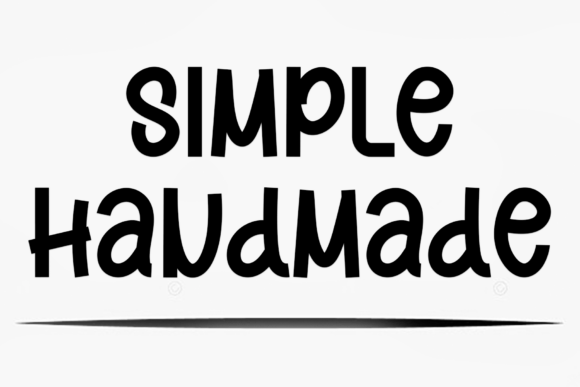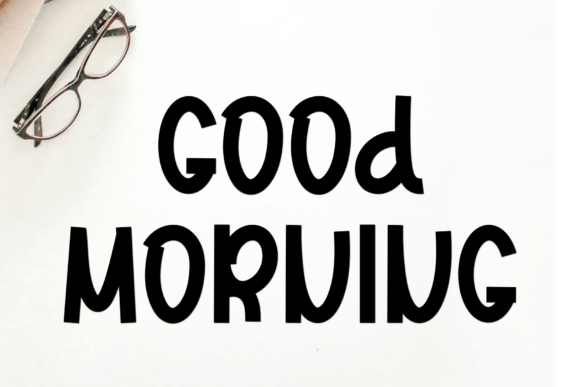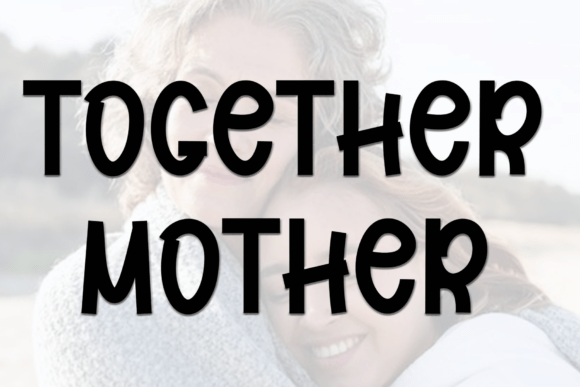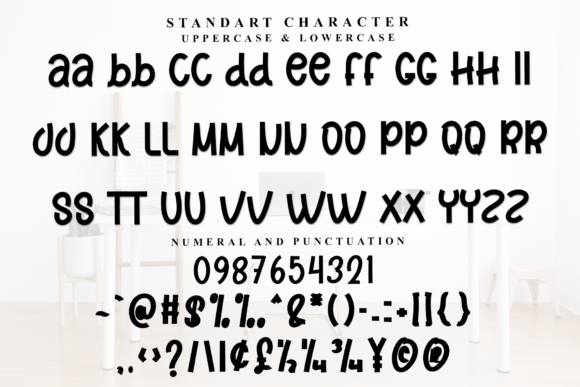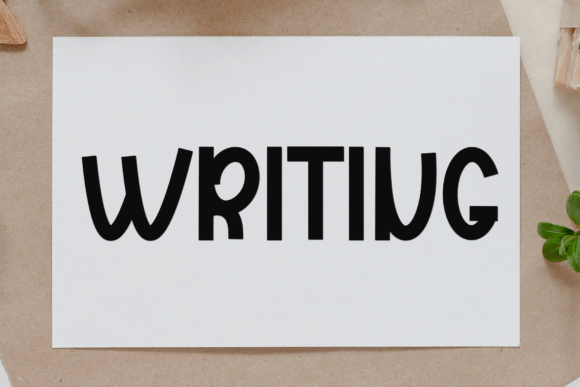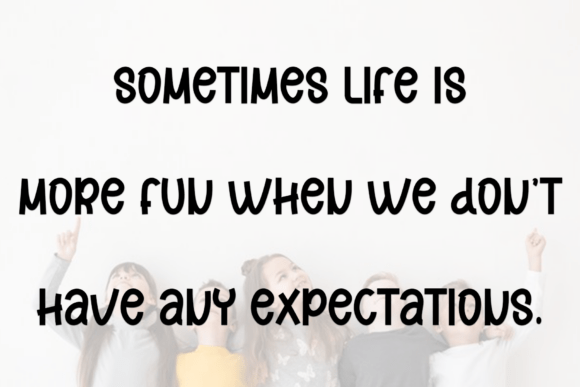
Introduction to Simple Whiskey Font
As the snowflakes gently fall outside, and the fireplace crackles to life, I find myself surrounded by the warmth and magic of the holiday season. It’s a time when creativity flows effortlessly, and I get lost in the world of design, searching for the perfect font to capture the essence of this special time of year. And then, I stumbled upon the Simple Whiskey Font – a festive and merry typeface that embodies the spirit of the holiday season.
This enchanting font is a treasure trove of creative possibilities, adding a touch of whimsy and nostalgia to any design project. Whether you’re working on a greeting card, gift tag, or holiday-themed project, the Simple Whiskey Font is the perfect design resource to bring your vision to life. With its high-quality glyphs and ligatures, this font is a valuable asset for designers looking to elevate their work and make it stand out.
Key Features of Simple Whiskey Font
- High-quality design: The Simple Whiskey Font is designed to provide a professional and elegant look for any creative project, making it a great addition to your design resource.
- Unique whiskey-inspired design: The Simple Whiskey Font features a unique and distinctive design that’s inspired by the world of whiskey, adding a touch of sophistication to any project.
Honest Review: Simple Whiskey Font
I recently stumbled upon the Simple Whiskey Font, and I must say it’s a great addition to any designer’s toolkit. As a designer, I appreciate high-quality fonts that can elevate a creative project to the next level.
One of the standout features of this font is its transparent background, which makes it perfect for using over images or other design elements. It’s also free to download, making it a valuable resource for designers on a budget.
- ✨ High-quality design that looks great on both screens and print materials
- ✨ Transparent background for easy integration with images and other design elements
- ⚠️ Limited character set may not be suitable for complex projects
- ⚠️ Some users may find the font too minimalist for their taste
Overall, I’m impressed with the Simple Whiskey Font. It’s a solid choice for designers looking for a high-quality, versatile font that’s easy to use. Just be aware of its limitations, and you’ll be able to get the most out of this design resource.
To get the most out of the Simple Whiskey Font, use it in a design with a warm and rustic color scheme. You can also use the font to create a design with a transparent background, such as a whiskey glass or a bottle.